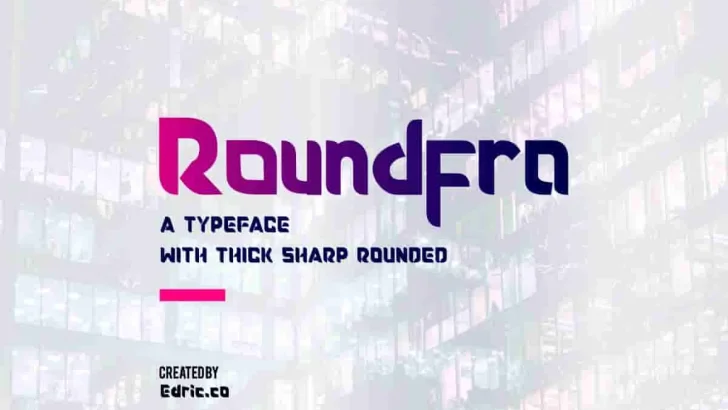
Roundfra Modern Display Font
Roundfra ! First made on 2017, now the font updated and modernized.This is a new modern sport futuristic font From EdricStudio